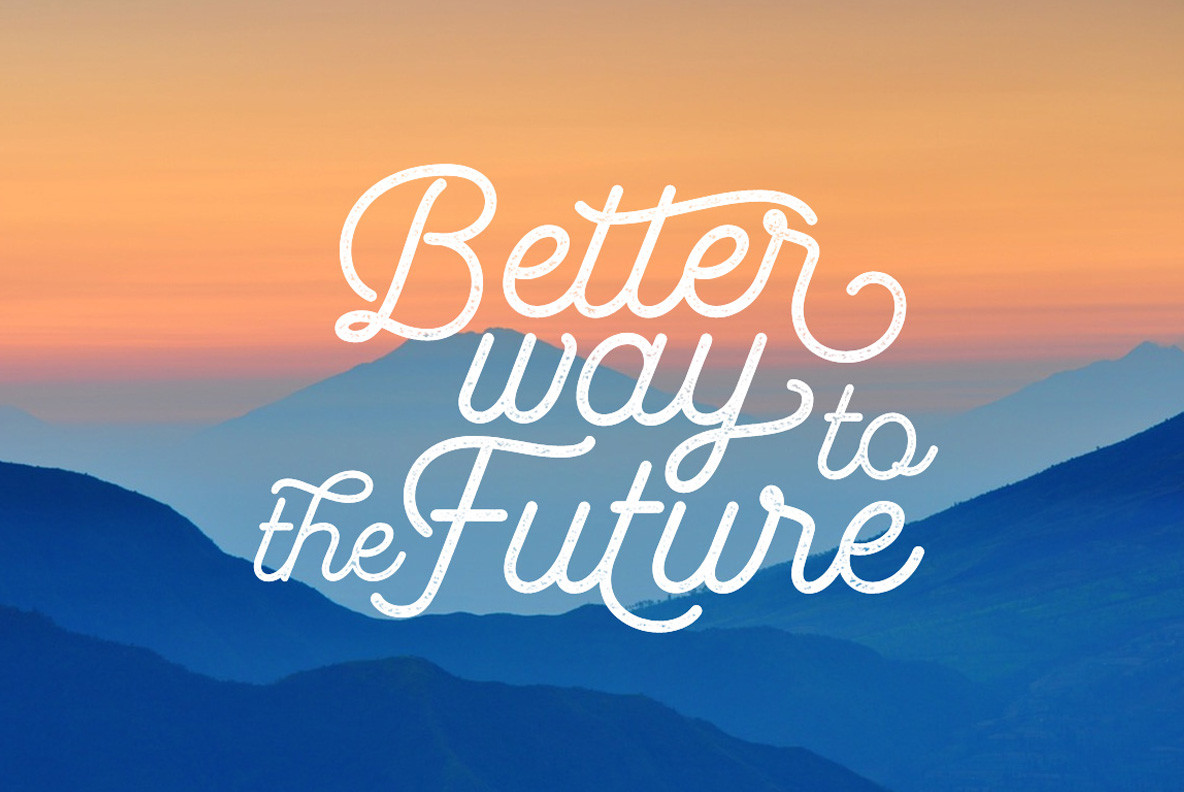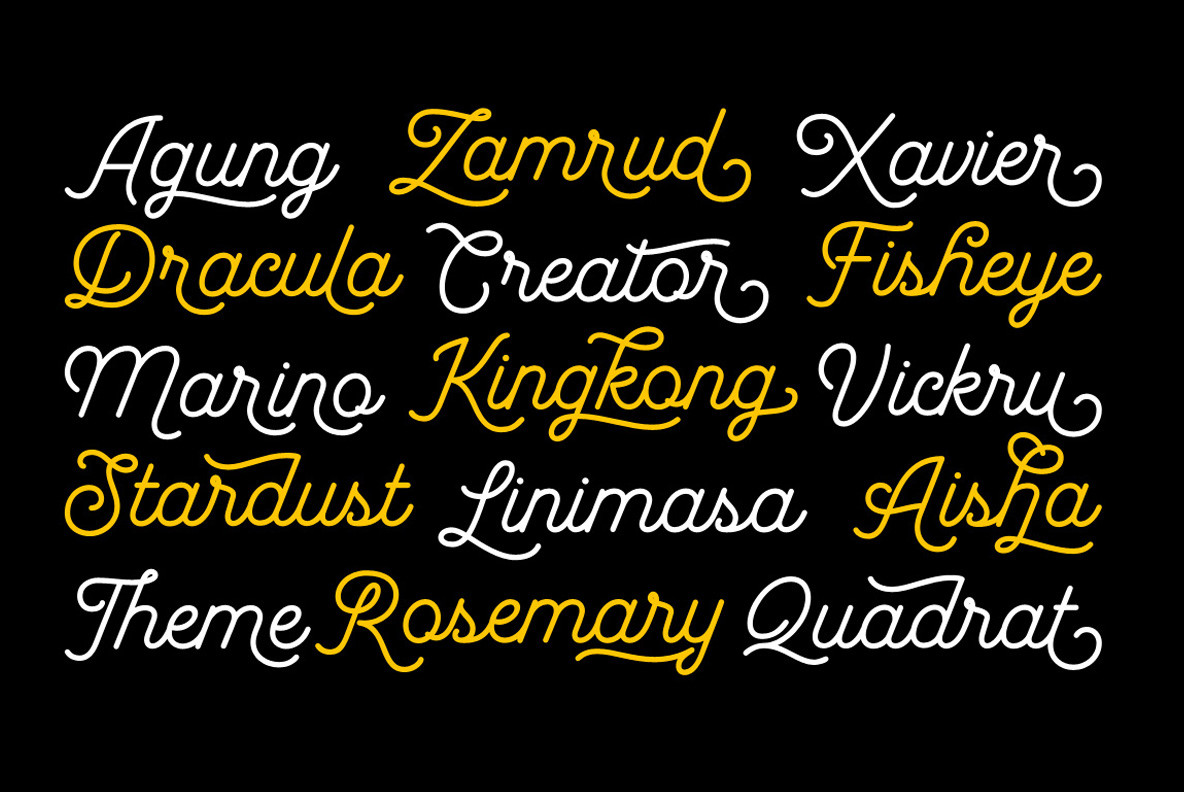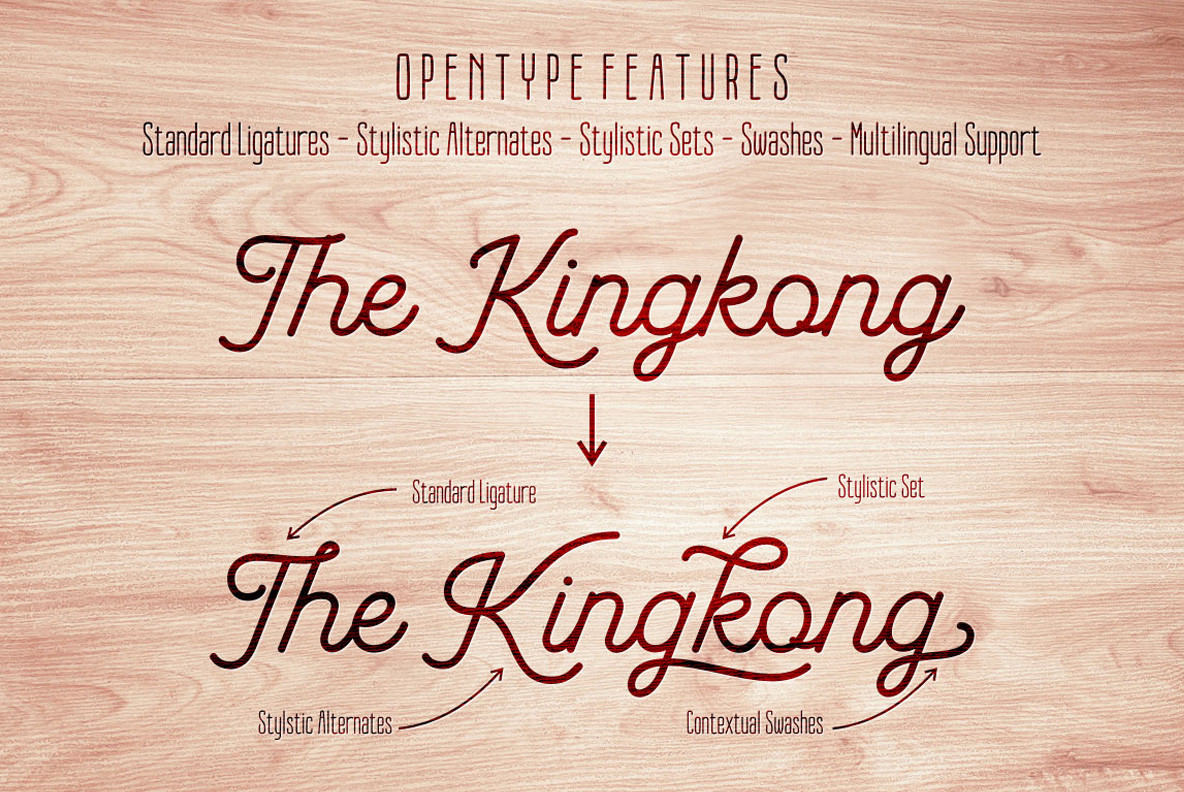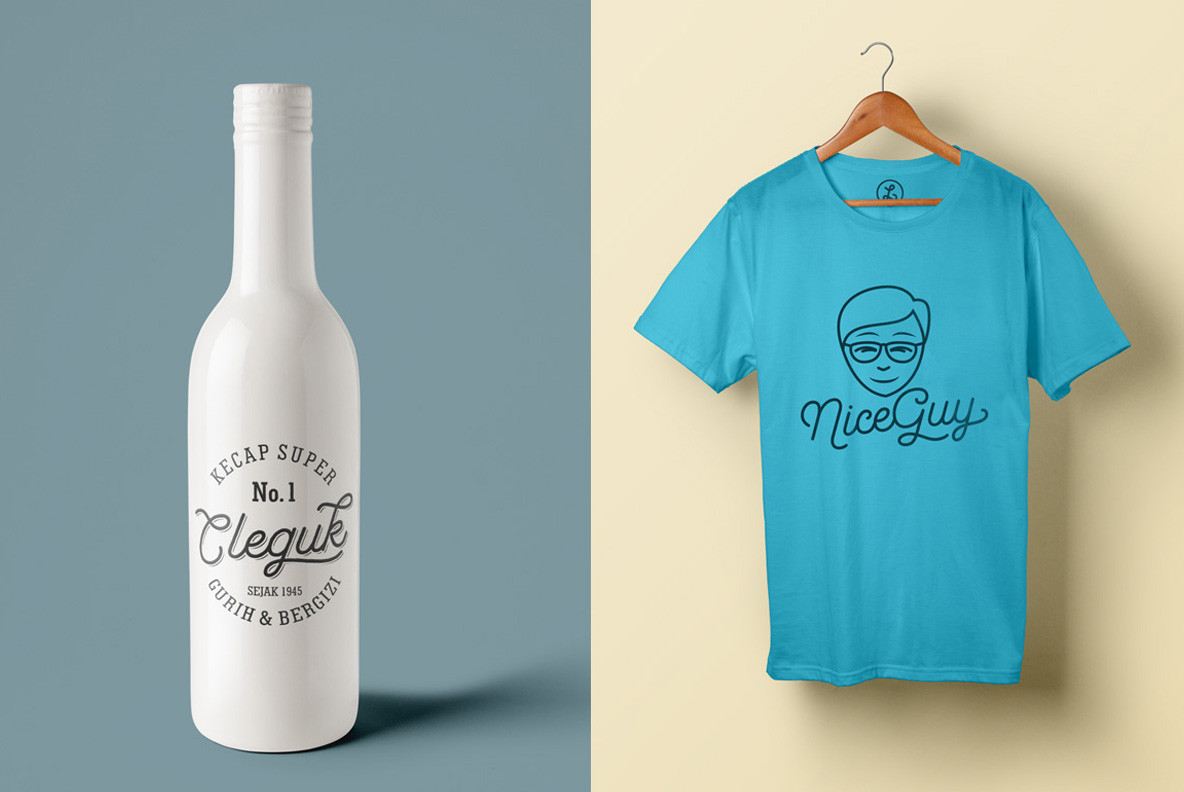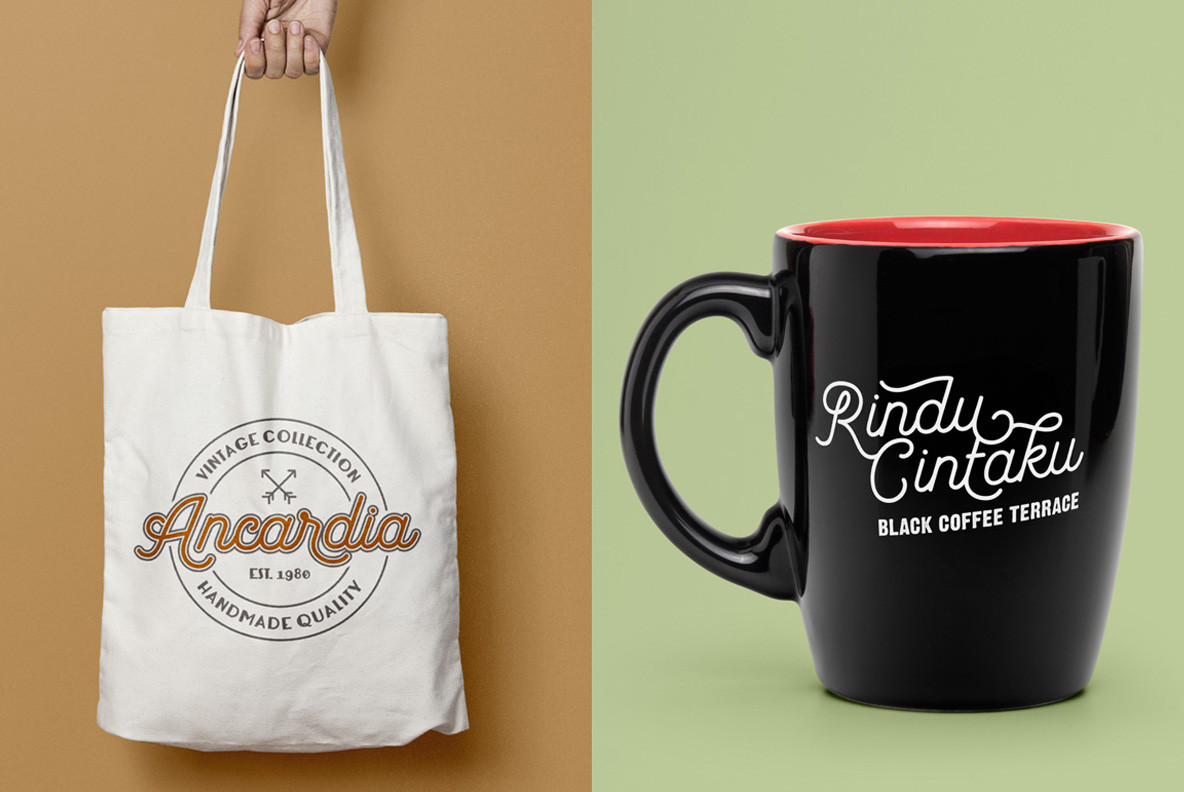
Garris is a monoline script with an awesome opentype features; ligatures, stylistic alternates, swashes, stylistic set (ss01 - ss07), initial and terminal form, as well as multilingual support with 360+ glyphs. Available in light and regular version as a choice to mix and match your design. This script font comes with multiple alternates that will make your words look like a custom lettering.